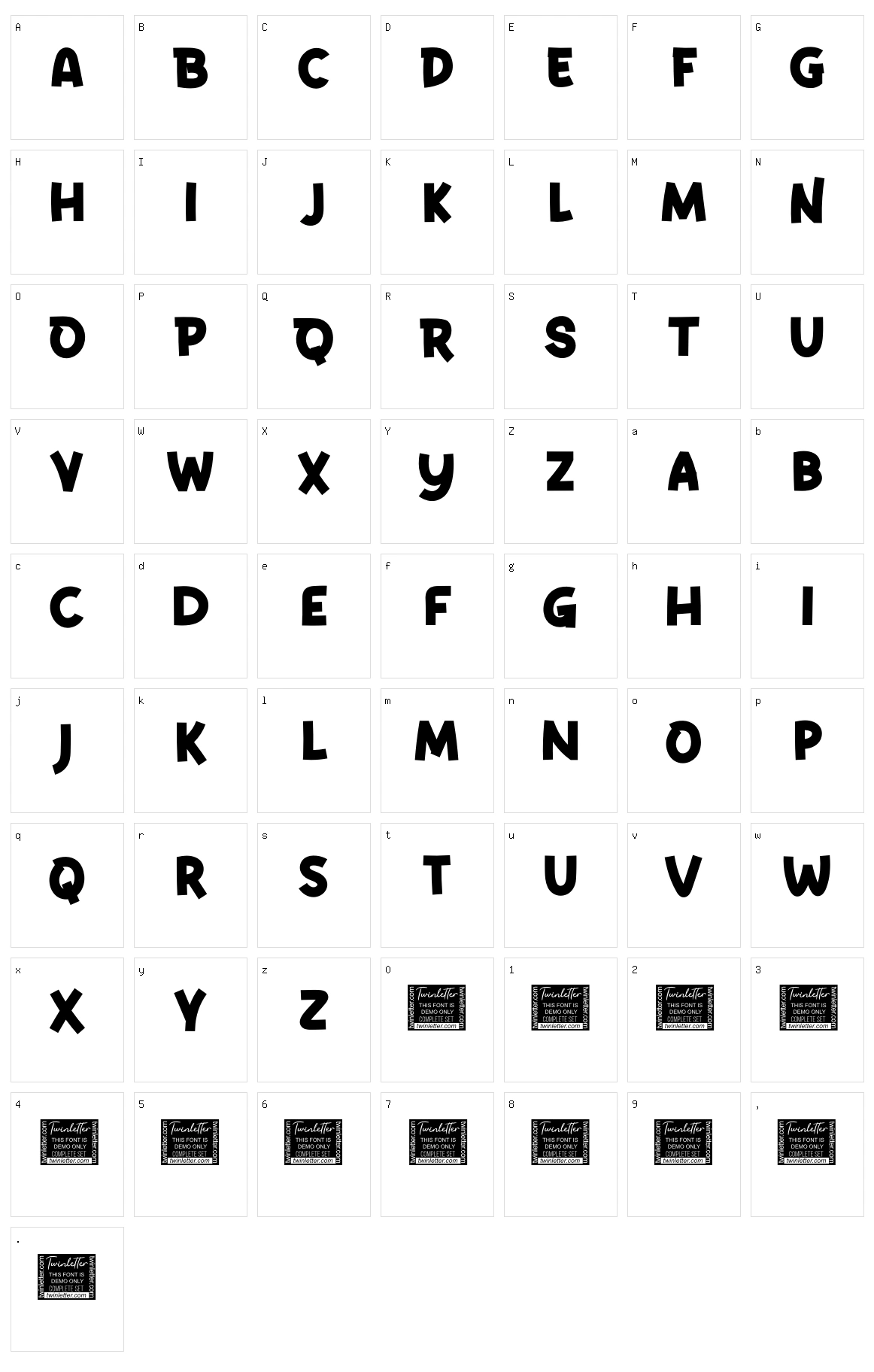
The free font Broqi is carefully designed by twinletter, showcasing a thoughtful balance of creativity and usability and falls under the Cartoon font style. When you download the ZIP file, it contains only 31.97 KB of font files, making it lightweight and quick to download. Please review the license details below to understand permitted usage and distribution rights. If license information is not available, we recommend using this font for personal projects only or contacting the author directly for commercial usage permissions.